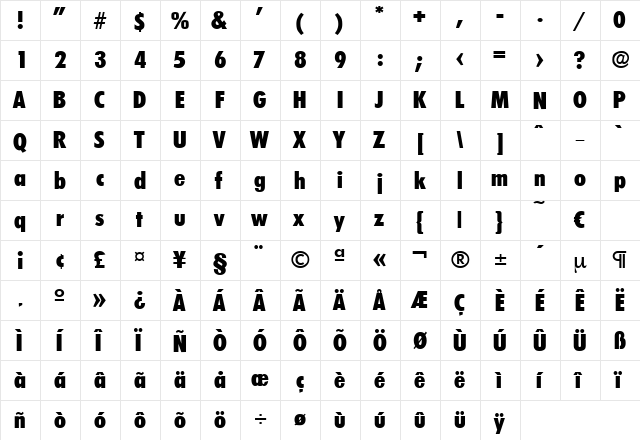
Limerick-ExtraBoldCond Regular Font Preview
Design Context for Limerick-ExtraBoldCond Typeface
Limerick-ExtraBoldCond offers clean, dependable letterforms without strong stylistic allegiance, making it a practical choice for designers who need flexibility. The heavy weight commands attention and anchors typographic hierarchies. The condensed width makes it efficient for tight spaces without sacrificing legibility.